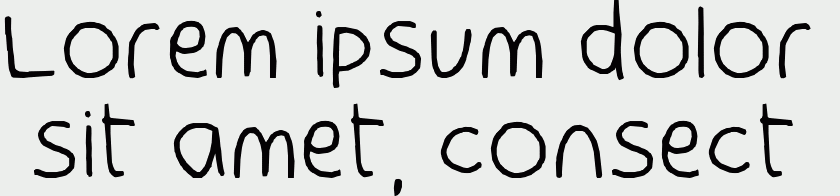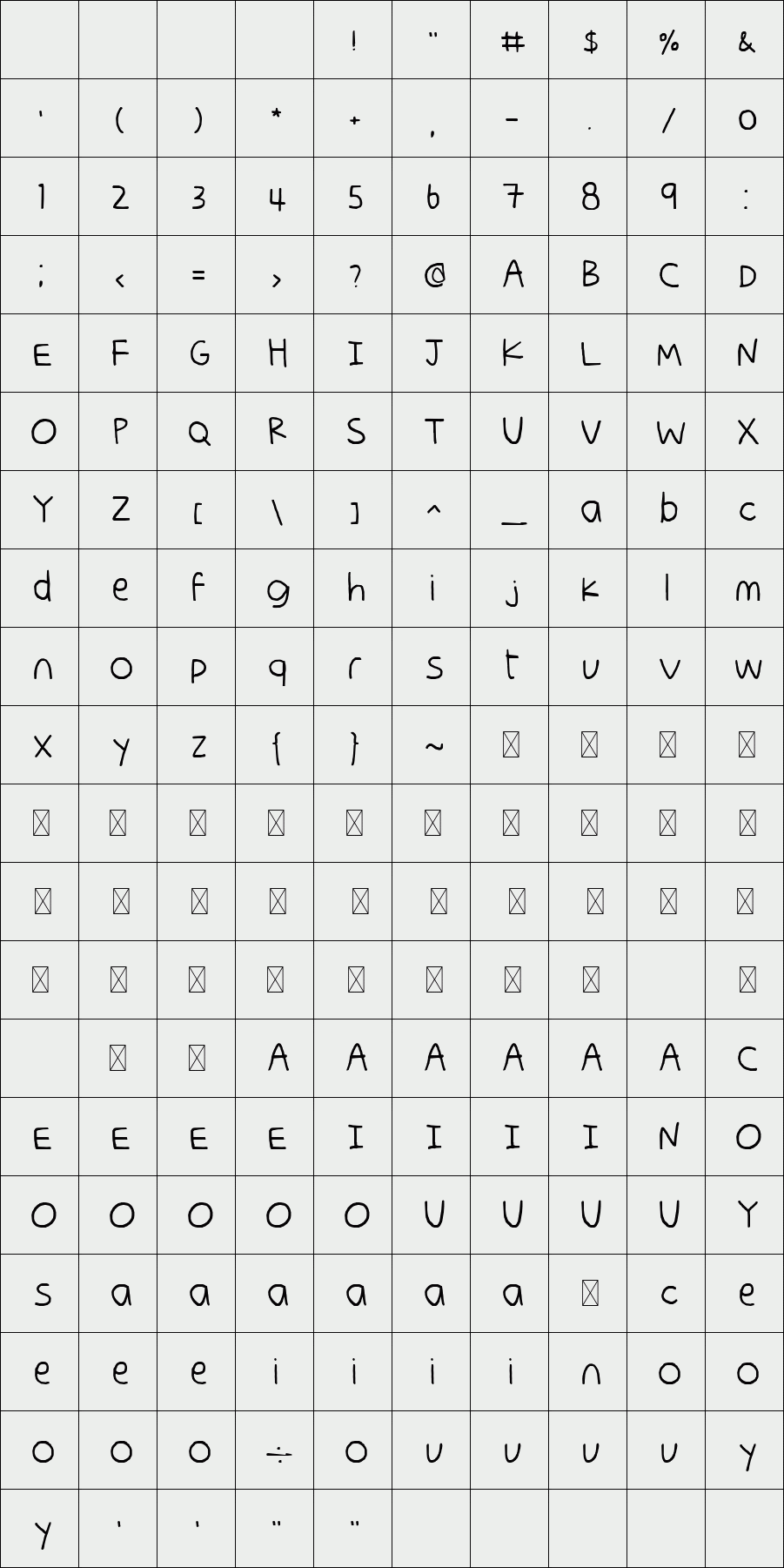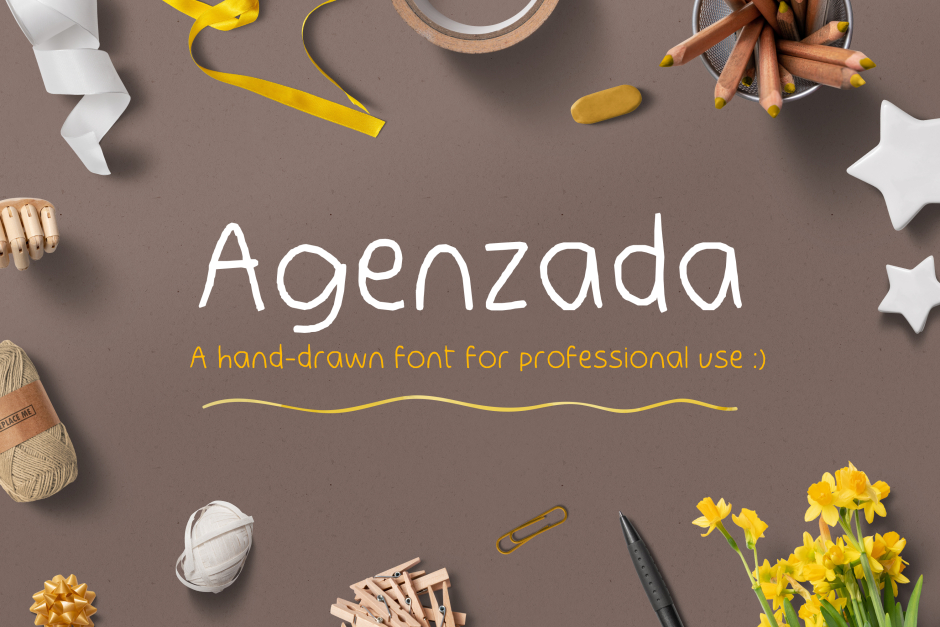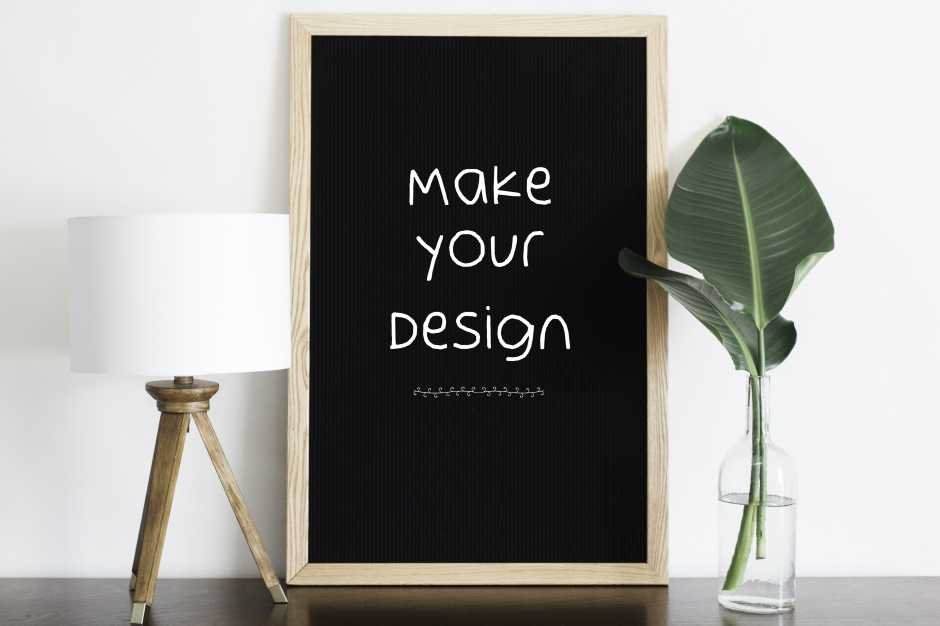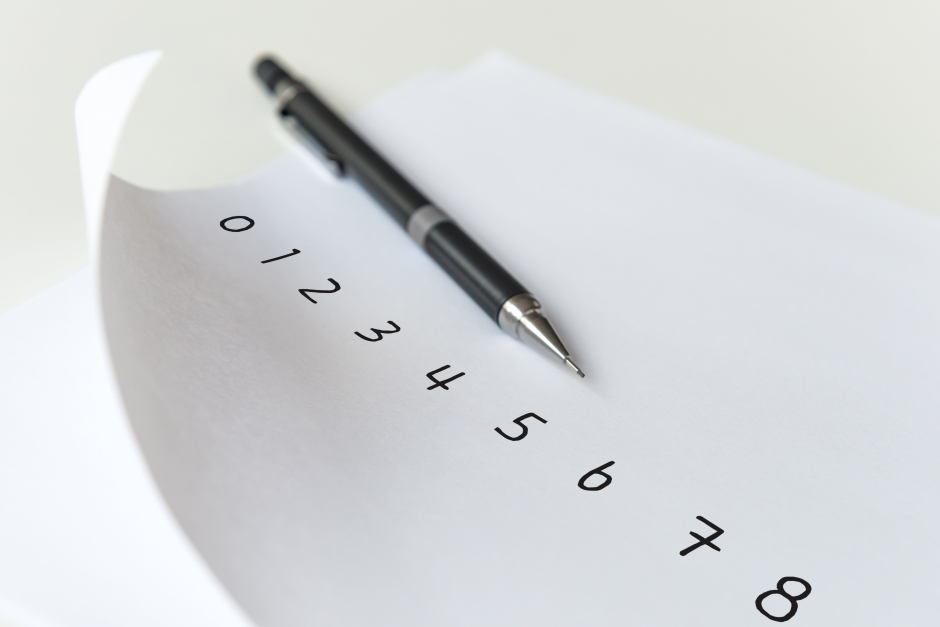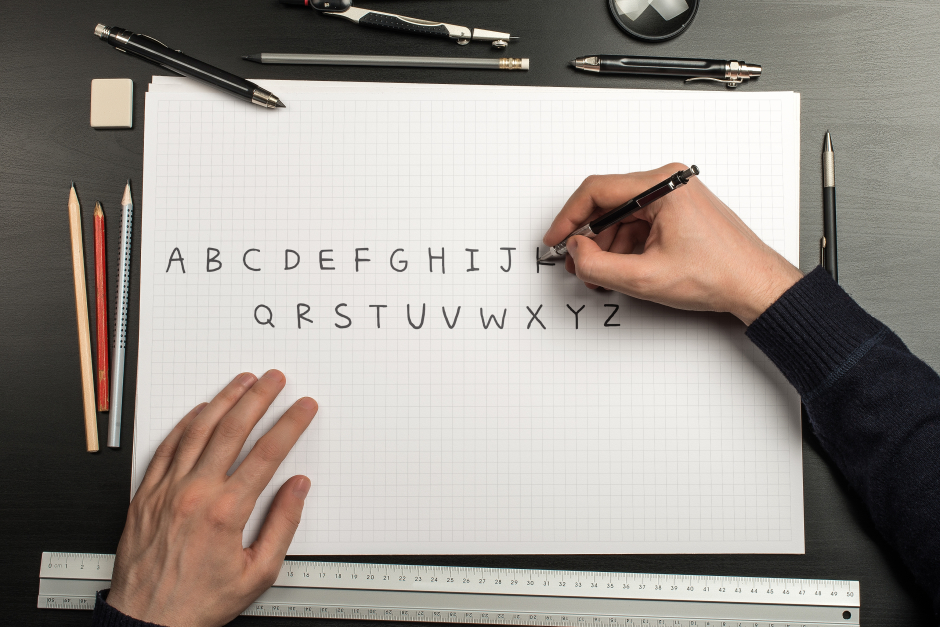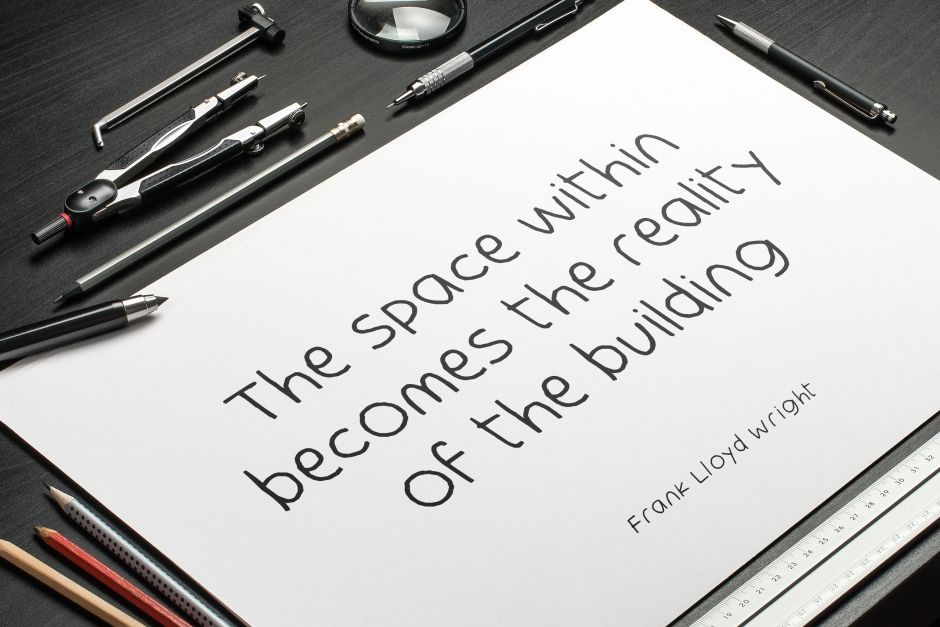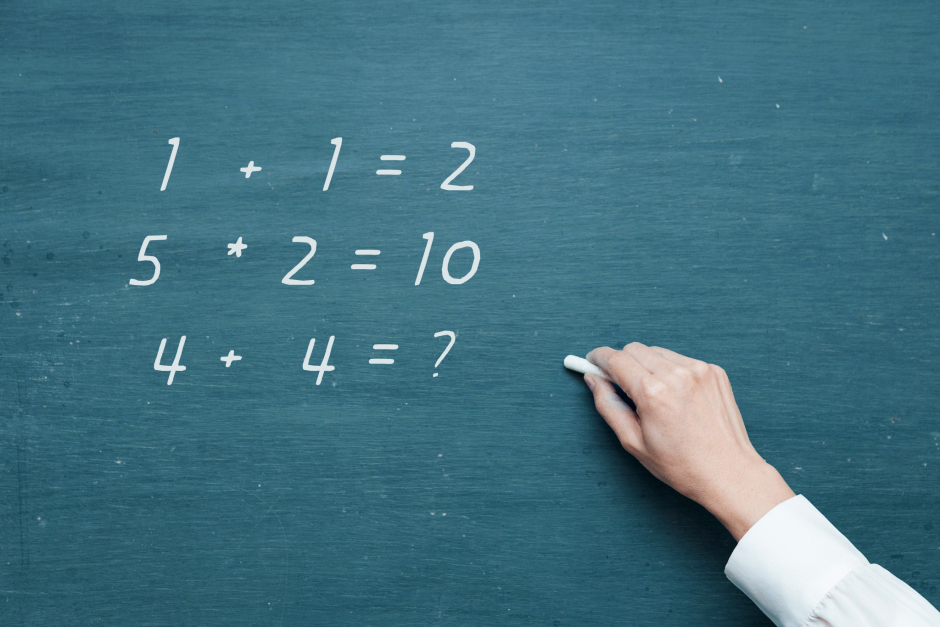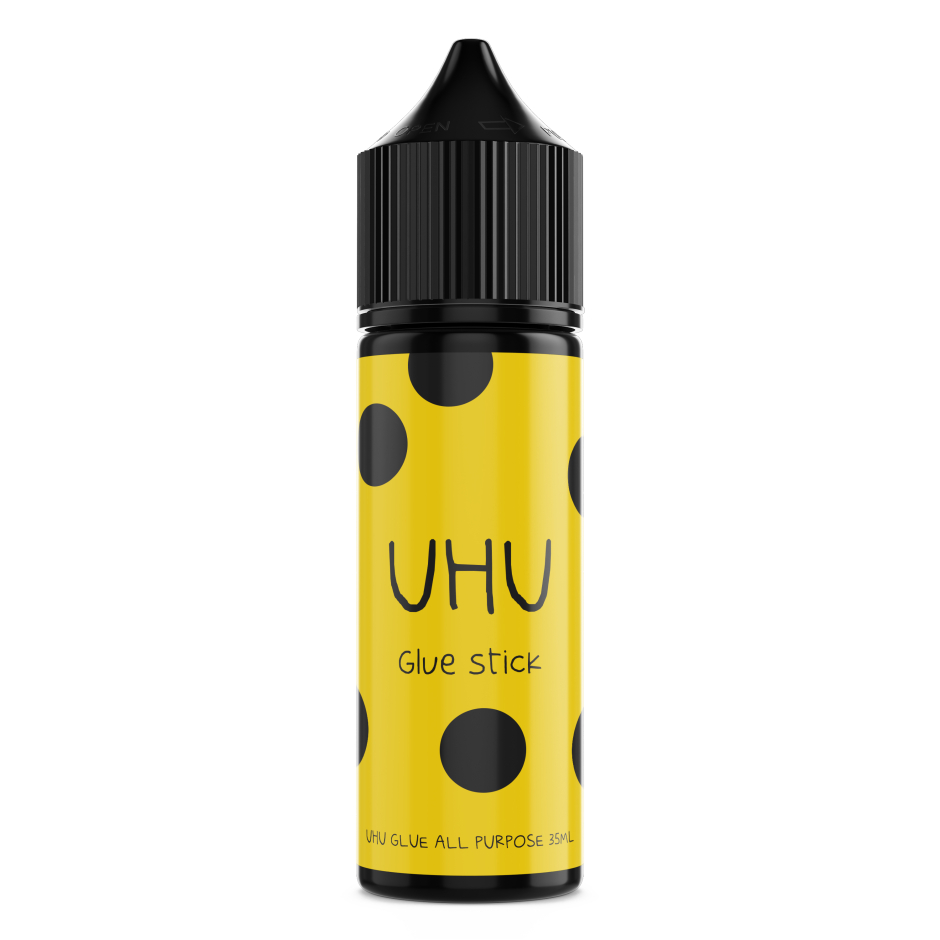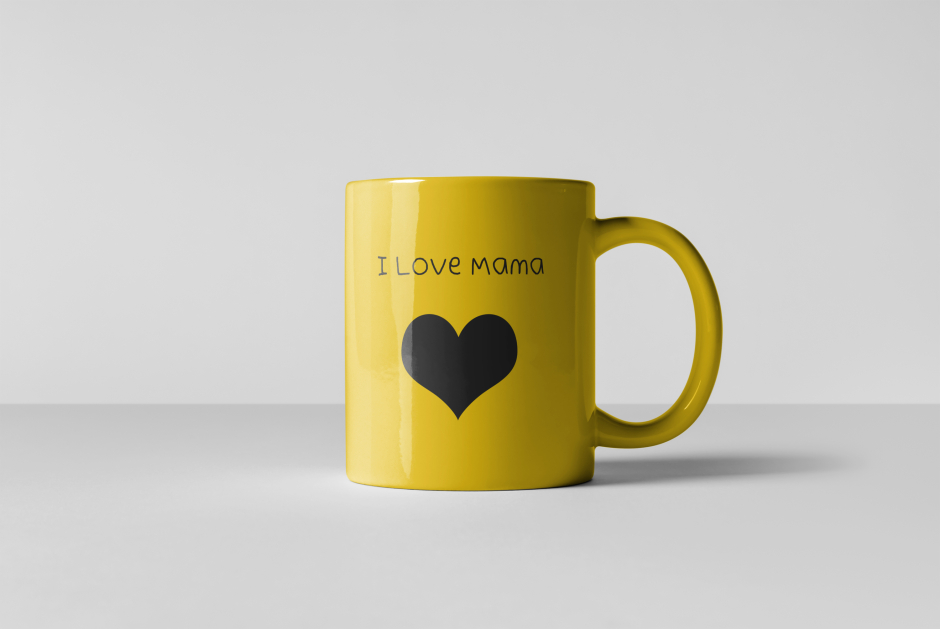
Agenzada
Agenzada a cute hand-drawn font that’s fun, friendly, and versatile , this font has two weight regular and italic and included full characters, numbers , punctuation .. enjoy with use agenzada.
Designer: listener® foundry